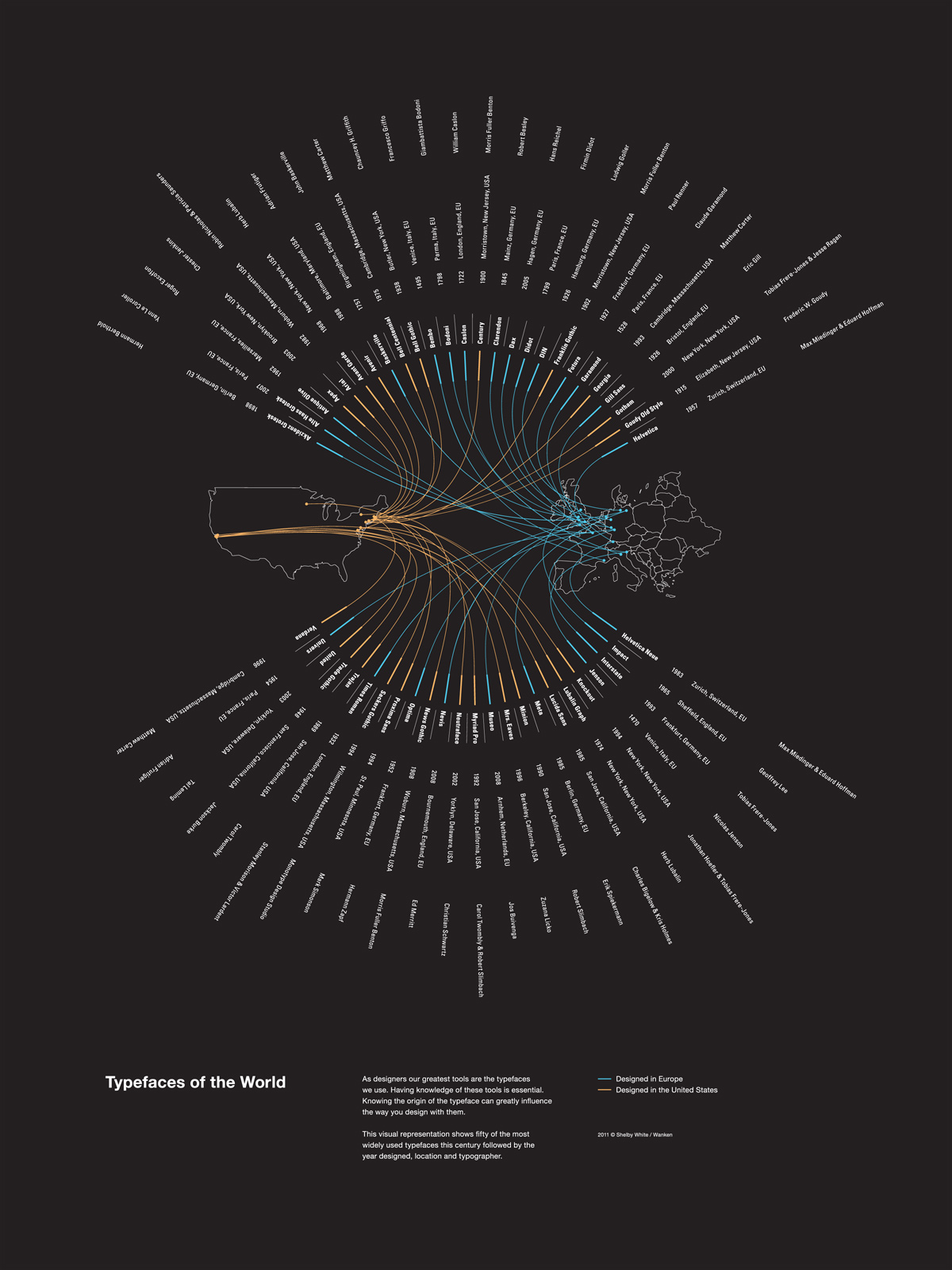
The World's Most Common Typefaces
Seattle designer and photographer Shelby White has designed a striking three-color poster with information on 50 typefaces he believes are “commonly used in a lot of today’s design.” Look closely and you’ll learn what year a typeface was released and by whom. But what appeals to me most about the poster is not its information, but the abstract beauty of its design.
In a blog post, White explains, “Initially the poster was created as an experiment and excuse to explore new methods of working in Illustrator that I hadn’t attempted before. I’d seen info graphics on Behance where data was fanned-out but evenly spaced—there was no way this was done by hand. It took a while but after figuring out the method of doing it where you can essentially paste in your data with tab-formatting, the poster was on its way.”